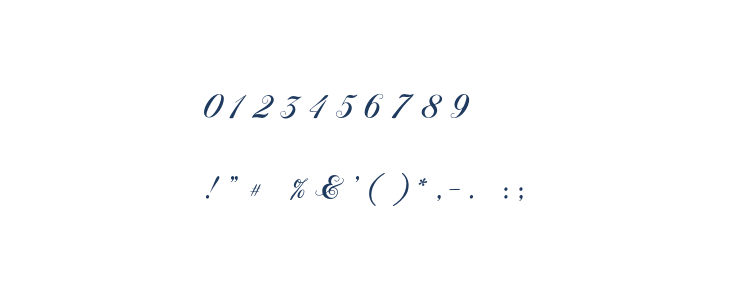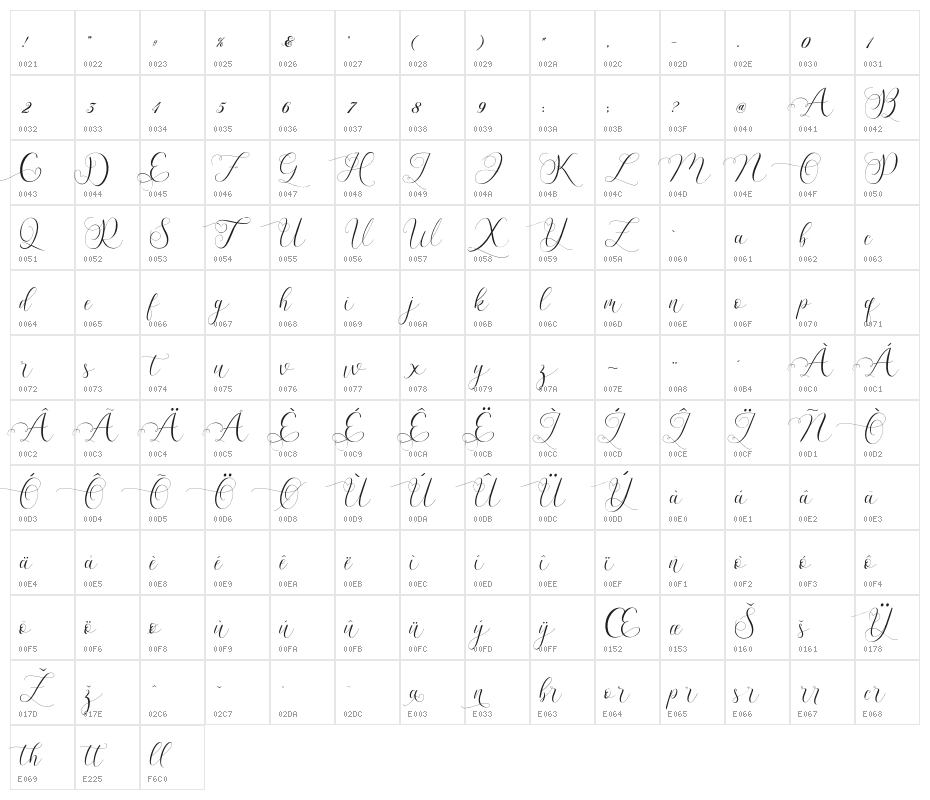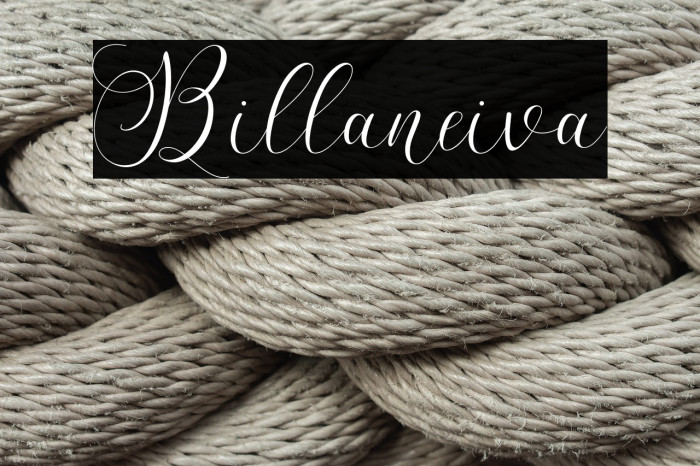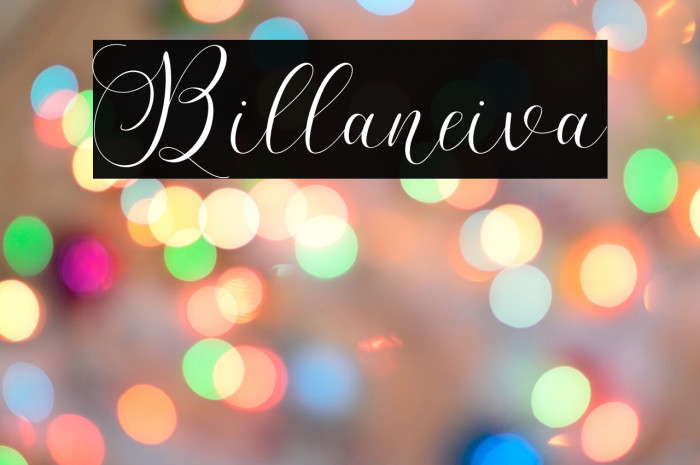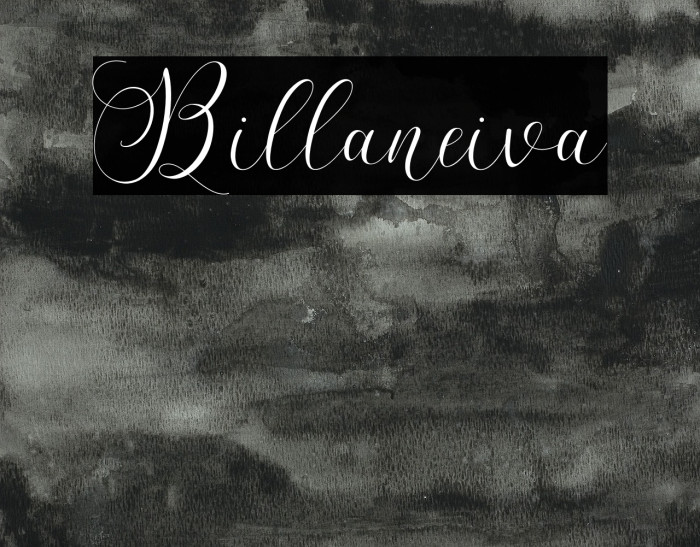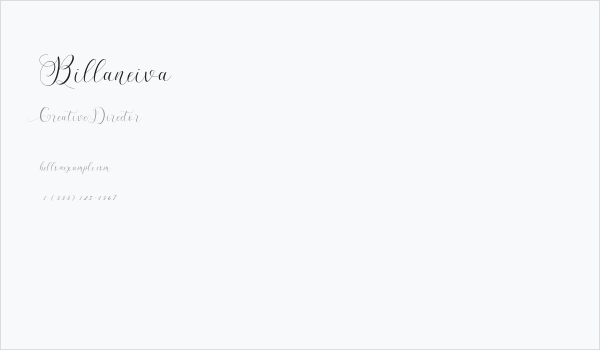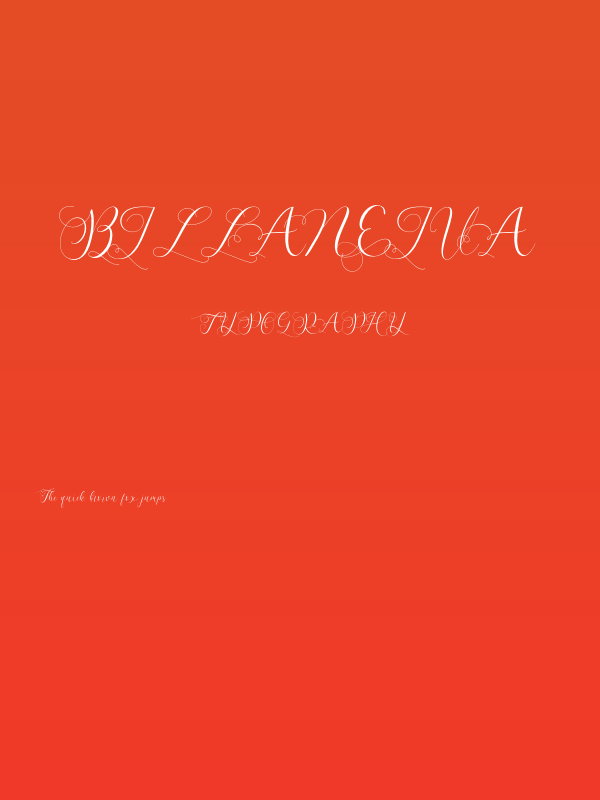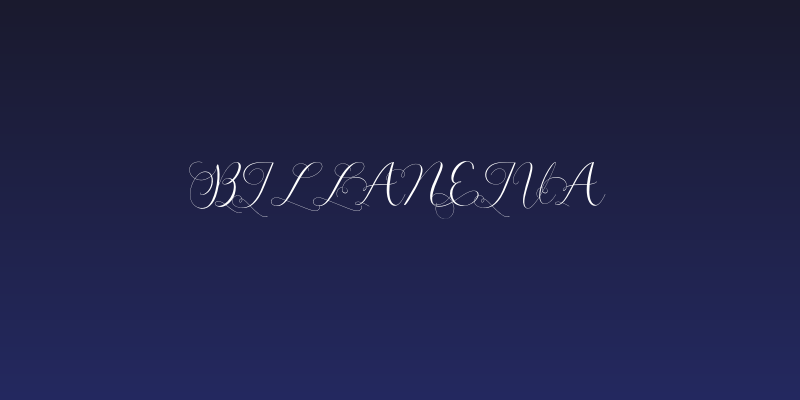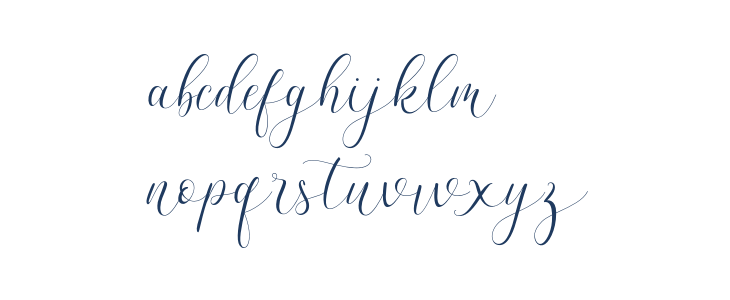
Billaneiva Font
Billaneiva Description
This elegant script font features flowing, interconnected letters with delicate flourishes and swashes. The uppercase letters are particularly ornate, with intricate loops and curves that give a sense of sophistication and grace. The lowercase letters maintain a consistent style, offering a smooth and fluid appearance. Numbers and special characters are designed to complement the overall aesthetic, maintaining the same level of detail and elegance. This font is perfect for projects that require a touch of class and refinement, such as wedding invitations, formal event programs, or luxury branding.
| Use Case | Logos, Invitations, Decorative Text |
| Proposed Projects | Ideal for wedding invitations, formal event programs, luxury branding, and elegant stationery. |